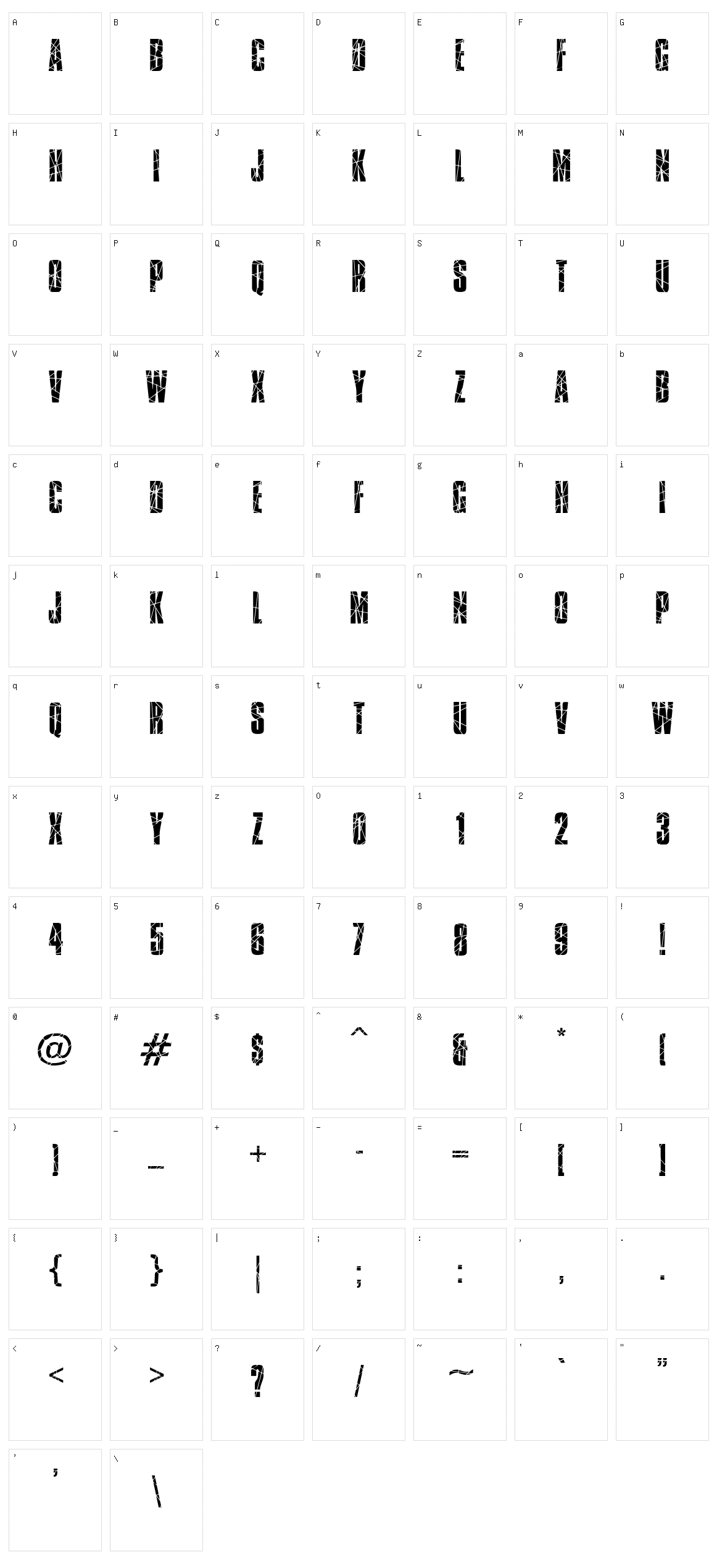
Broken Glass Font
The Broken Glass font is a display font reminiscent of broken glass. It is based on a block-letter font. It comes with letters, numbers, punctuation and international characters. This font is in the public domain. Please read the terms of use at http://jlhfonts.blogspot.com/.